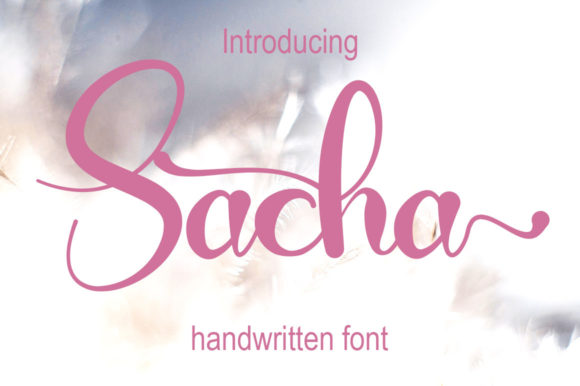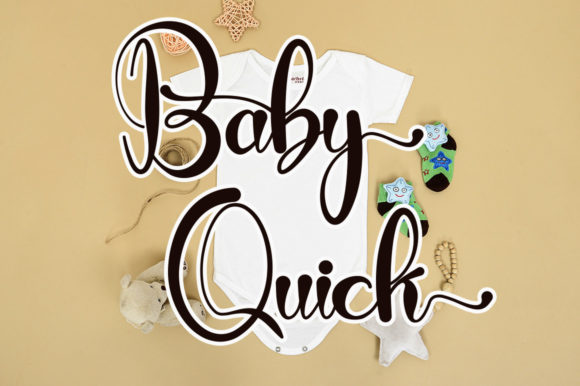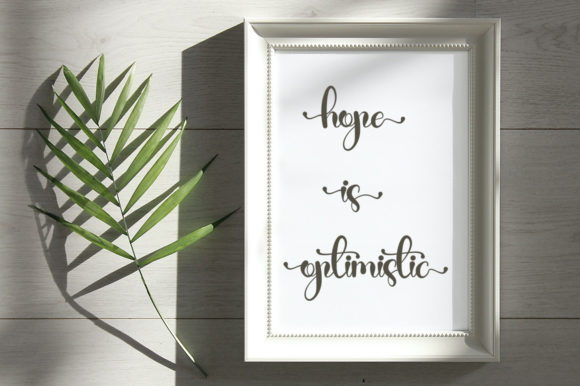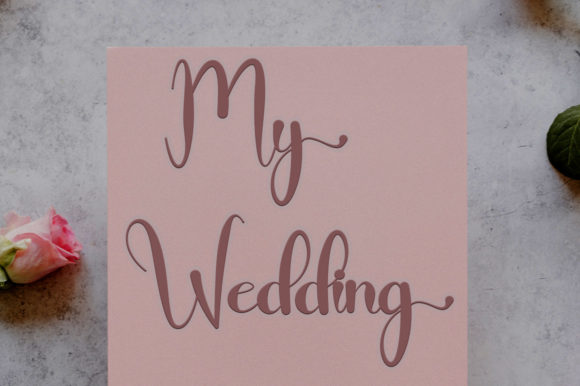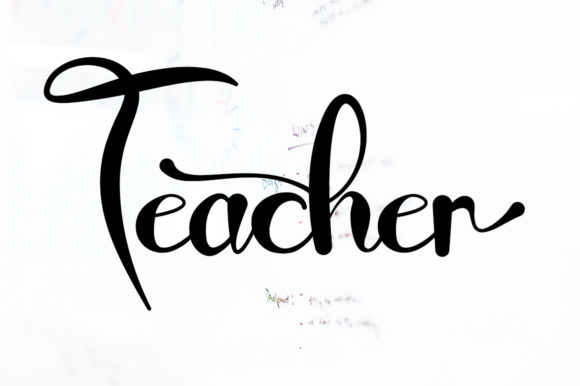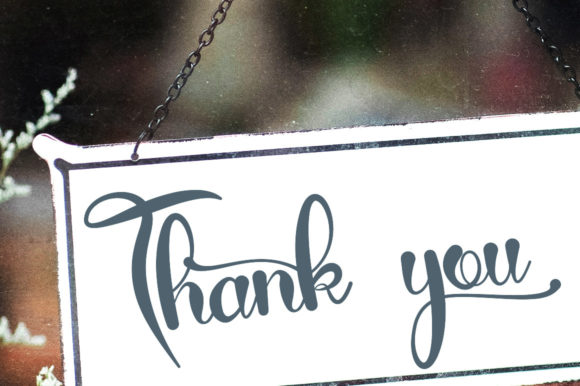
About Sacha Font
Sacha is an interesting handwritten font perfect for any design you wish to create. Add it to your creative projects, and it will make your work sparkle with elegance and delight.